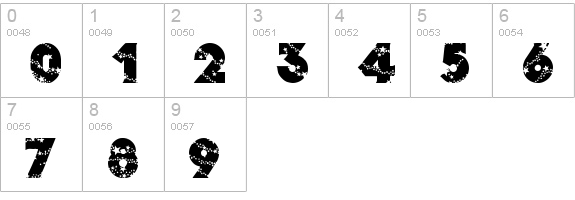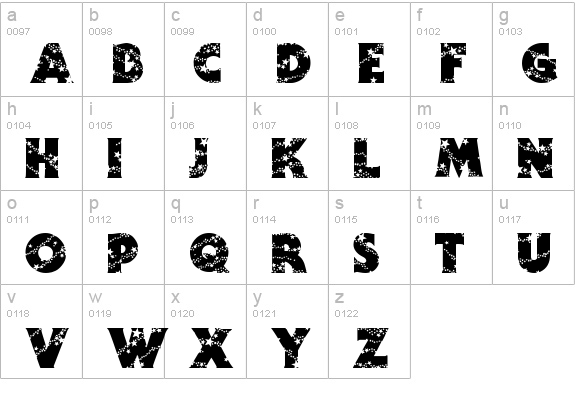
Wizardry Font Details
Introducing Wizardry font, a captivating and enchanting typeface that will transport you to a world of magic and mystique. This font is perfect for adding a touch of whimsy and fantasy to any project, whether it be a book cover, logo design, or website. With its intricate and spellbinding letterforms, Wizardry font captures the essence of ancient spells and wizardry, making it ideal for any design that seeks to evoke a sense of enchantment and wonder. Each letter is carefully crafted to reflect the artistry and craftsmanship of a skilled sorcerer, ensuring that your text will captivate and mesmerize your audience. What makes Wizardry font even more magical is that it is completely free! Yes, you read that right. This stunning font is freely available to download at FontsMarket.com, allowing you to unleash your creativity without any constraints. Whether you are a professional designer or a hobbyist, Wizardry font offers you the opportunity to create spellbinding designs without breaking the bank. So don't miss out on this opportunity to add a touch of magic to your projects. Download Wizardry font today from FontsMarket.com and prepare to embark on a journey through the realms of imagination. Let the power of this enchanting font unleash your creativity and bring your designs to life.